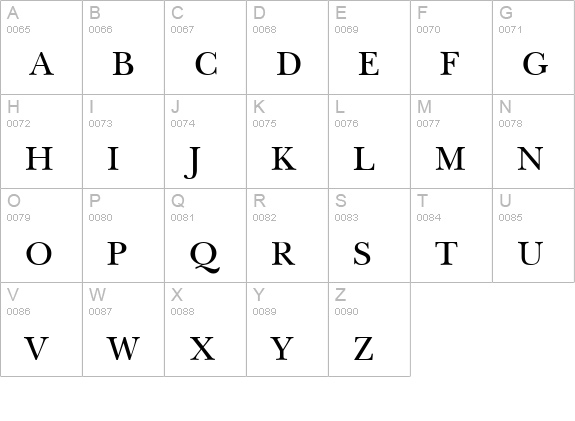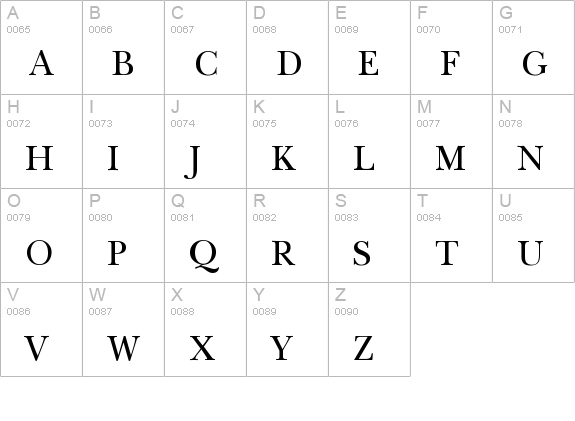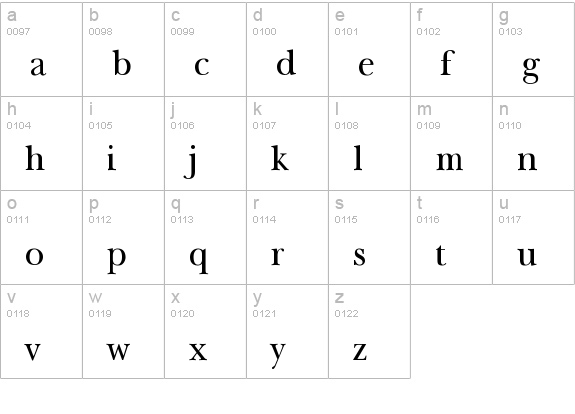
Baskerville Light SSi Light Font Details
Baskerville Light SSi Light is a refined, elegant variant in the Baskerville typeface family \xE2\x80\x94 well suited to elegant body text, refined sub-headings, and luxury branding.
Baskerville Light SSi Light font is a timeless and elegant typeface that exudes sophistication and class. Its delicate strokes and graceful curves make it perfect for a wide range of design projects, from invitations to branding to editorial layouts. The light weight of this font adds a touch of subtlety and refinement to any text, making it a versatile choice for both print and digital applications. And the best part? Baskerville Light SSi Light font is available for free download at FontsMarket.com! Now you can easily access this beautiful font and enhance your designs with its timeless charm. Whether you're a designer looking to elevate your projects or a business owner wanting to make a lasting impression, Baskerville Light SSi Light font is a must-have in your font collection. Download it today and add a touch of elegance to your creations.